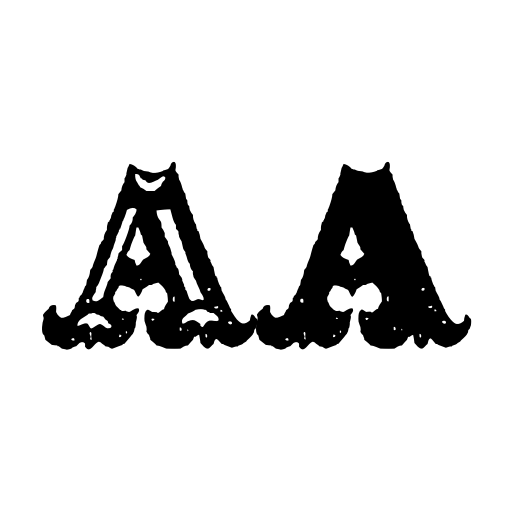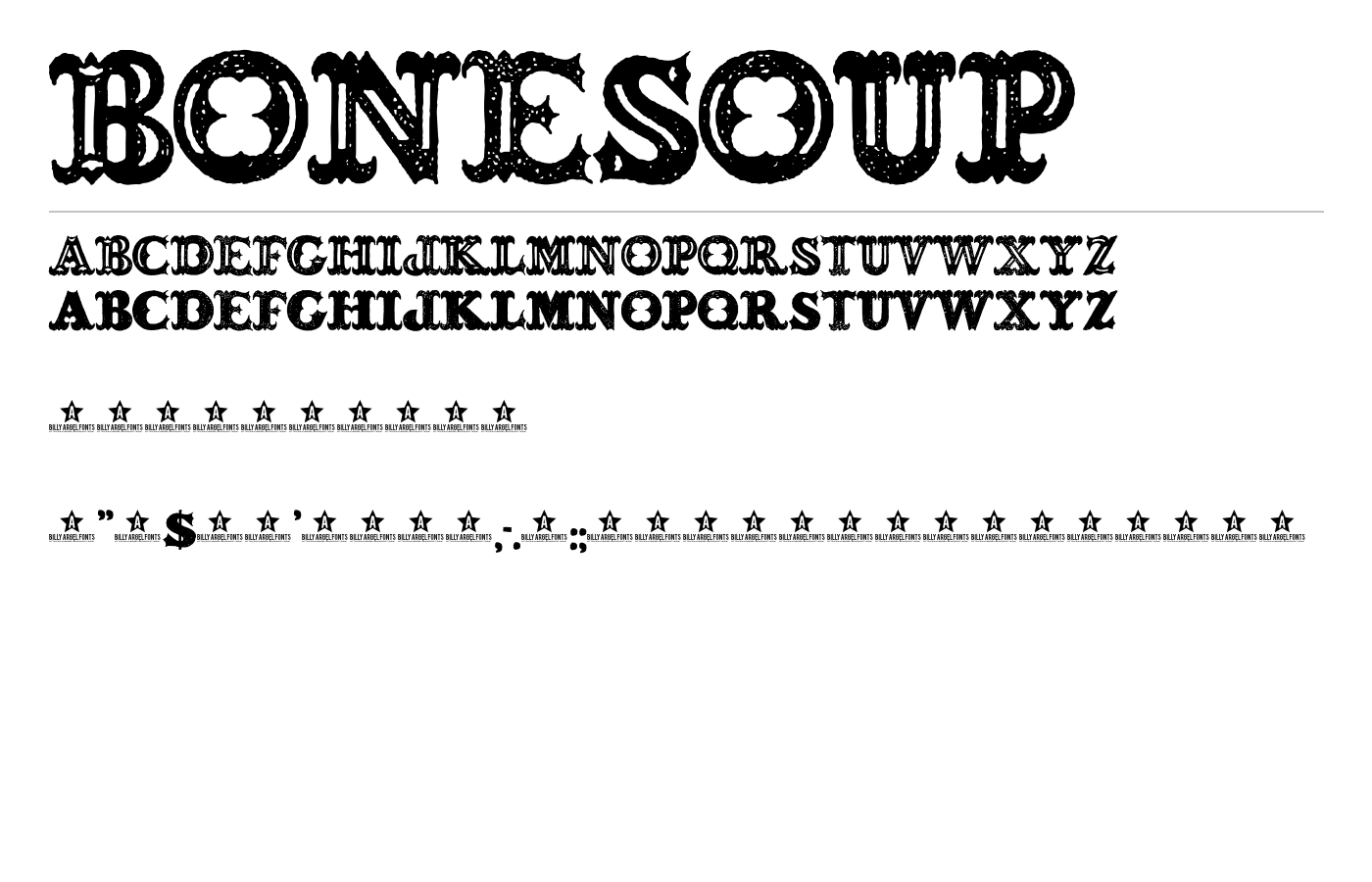
Bonesoup is a bold, decorative serif font with a vintage, western-inspired look. Its heavy weight, rough texture, and playful, ornate details give it a rustic, handcrafted feel, making it perfect for eye-catching headlines, posters, and branding that aim for a rugged or old-fashioned charm. This font works well where a strong, distinctive personality is needed to grab attention and evoke a sense of nostalgia or adventure.
BONESOUP Font
About BONESOUP Font